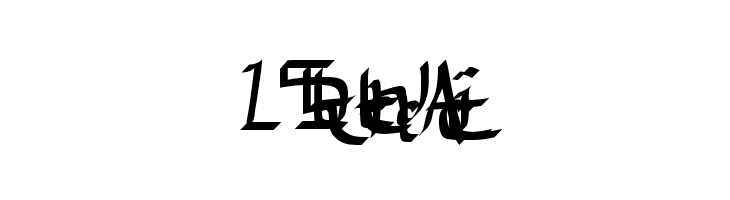
( Fonts by Dieter Steffmann )
An ornate Blackletter font with intricate, angular designs and dramatic flourishes.
( Fonts by Rich Gast - www.greywolfwebworks.com OFF SITE )
A bold, distressed font with a glitch-like effect, ideal for tech-inspired designs.
( Fonts by or from www.graffitifonts.net )
A bold, graffiti-inspired font with sharp, angular lines and dynamic shapes.
A bold, geometric font with a futuristic and modern design.
( Fonts by Mr Fisk - Mike Larsson - fontorama.net )
A bold, stencil-like font with a rugged, industrial feel.